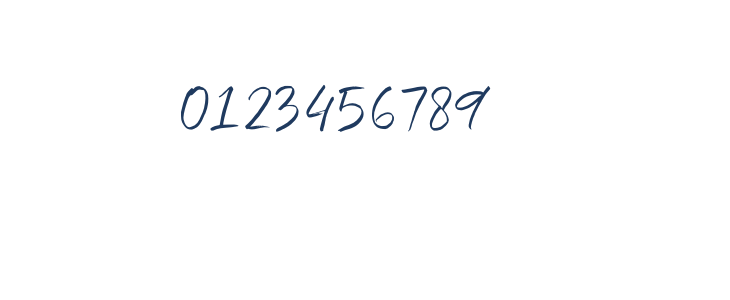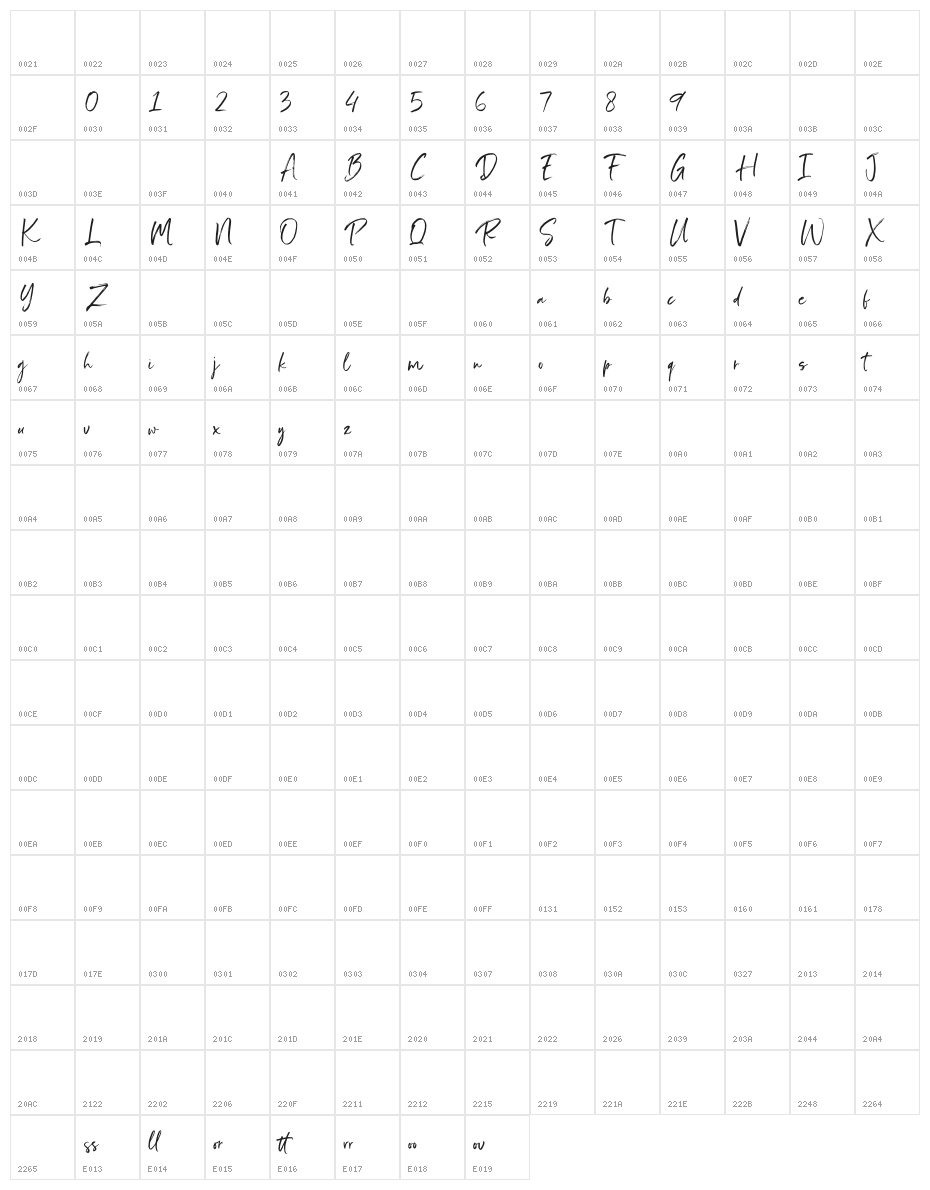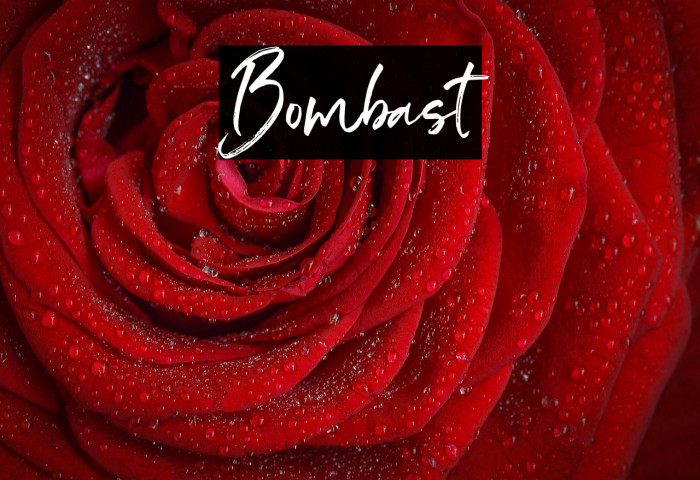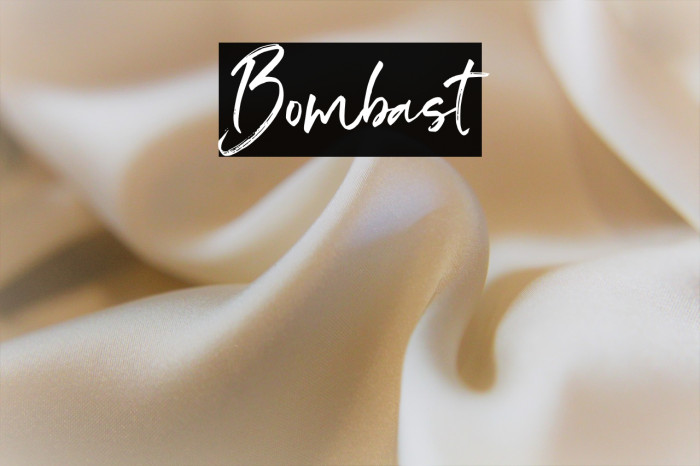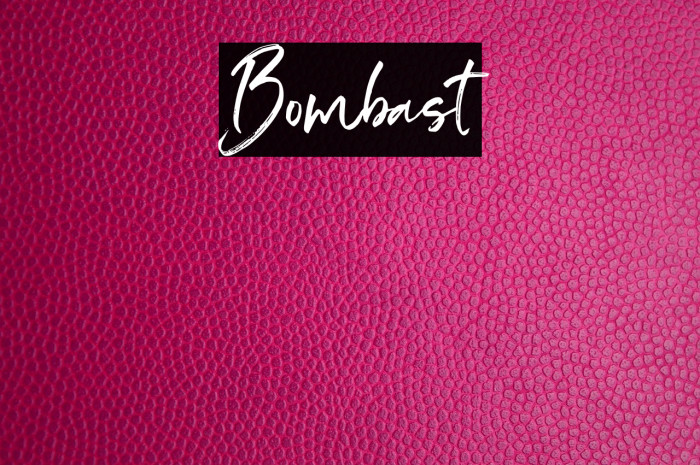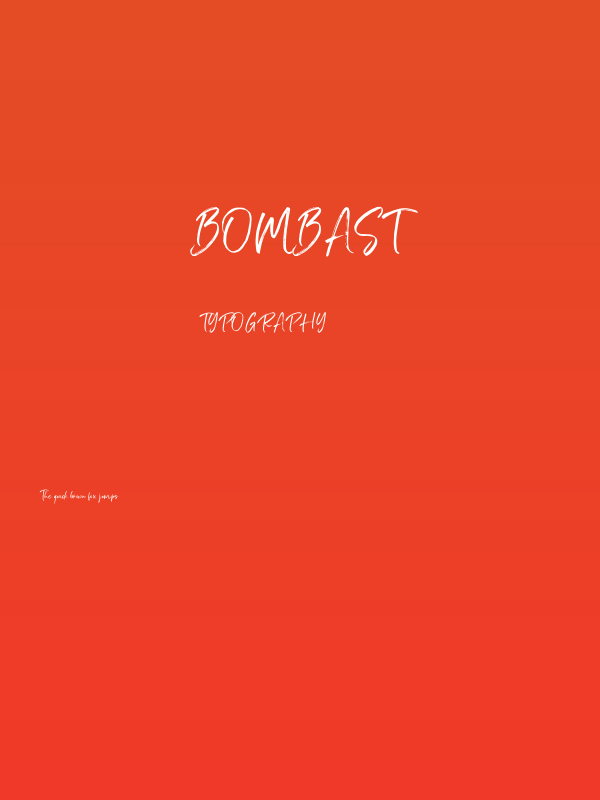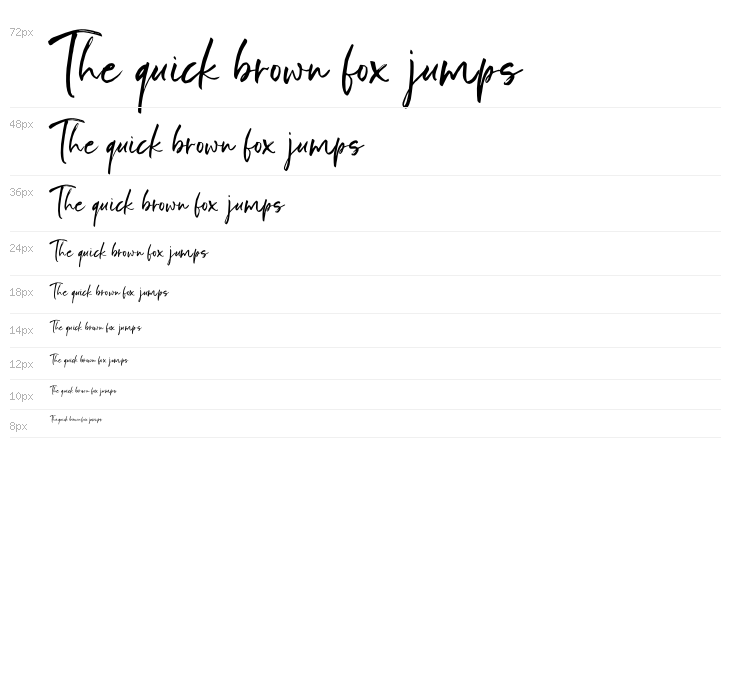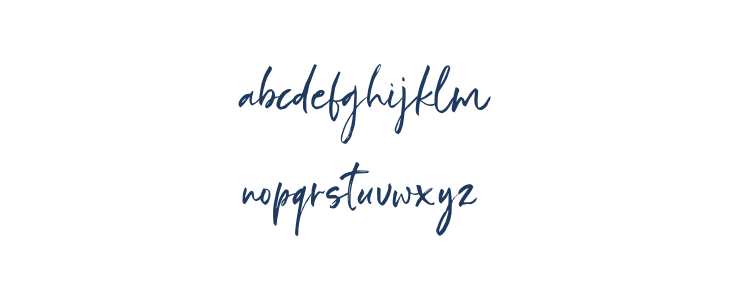
Bombast Font
Bombast Description
This font exudes a dynamic and energetic style, characterized by its brush-like strokes that give it a handwritten appearance. The uppercase letters are bold and expressive, with varying stroke widths that add a sense of movement and fluidity. The lowercase letters maintain this lively aesthetic, featuring smooth curves and a slightly slanted orientation that enhances the casual, yet sophisticated look. The numerals are consistent with the overall style, offering a cohesive and artistic feel. This font is perfect for projects that require a personal touch, such as invitations, greeting cards, or artistic branding. Its unique style makes it stand out, while still being legible and versatile.
| Proposed Projects | Ideal for invitations, greeting cards, artistic branding, and creative projects requiring a personal touch. |